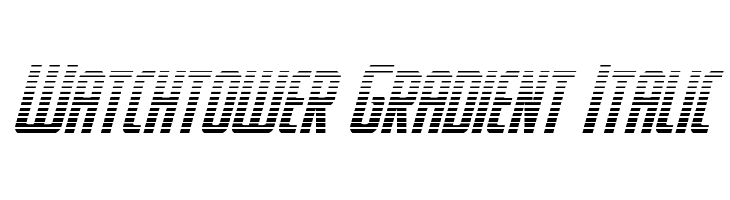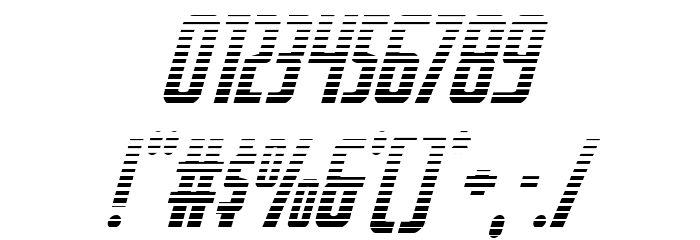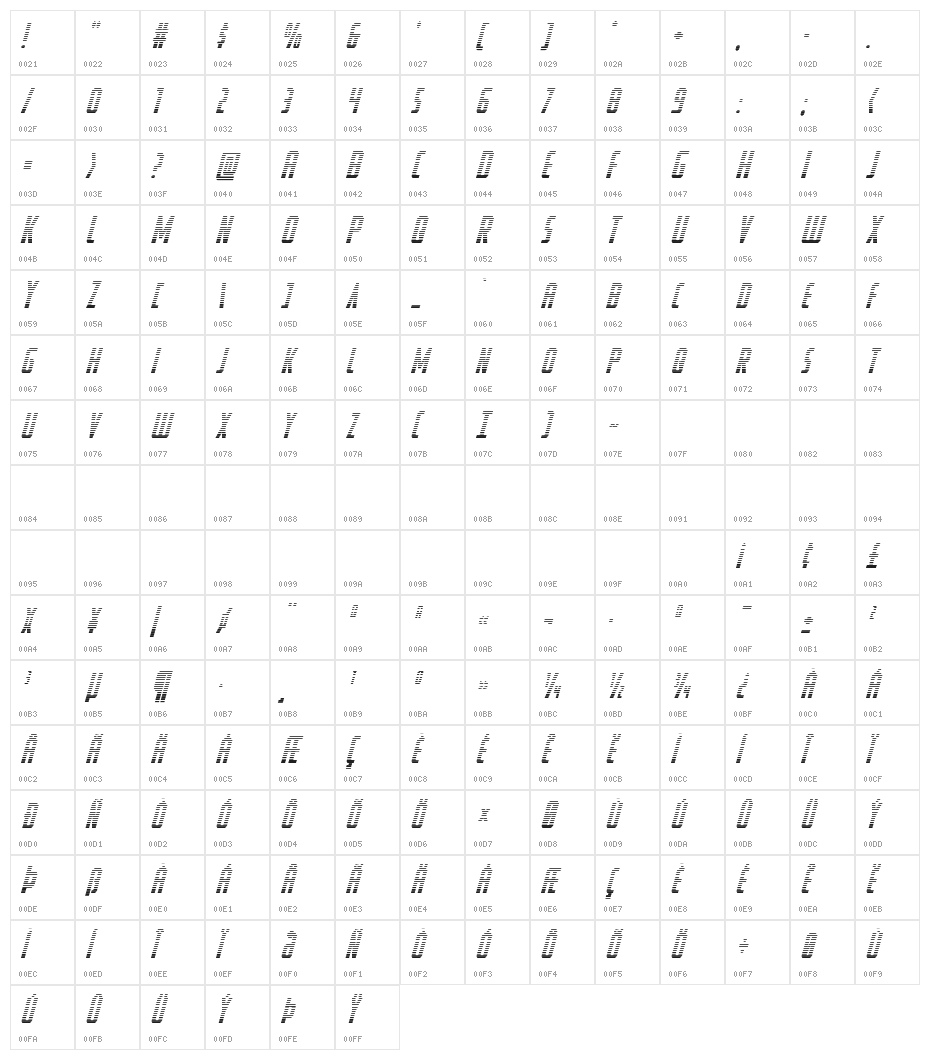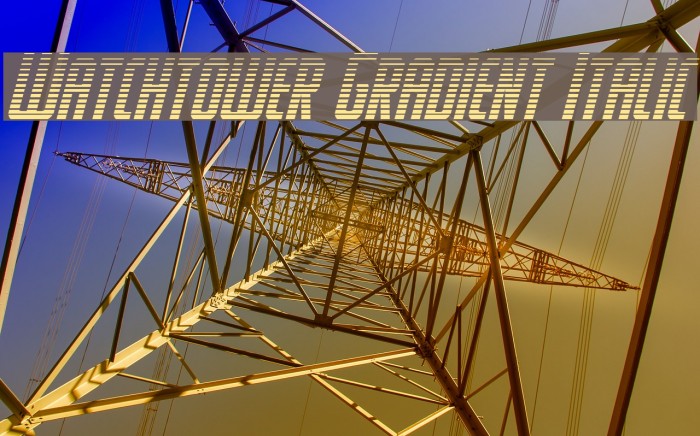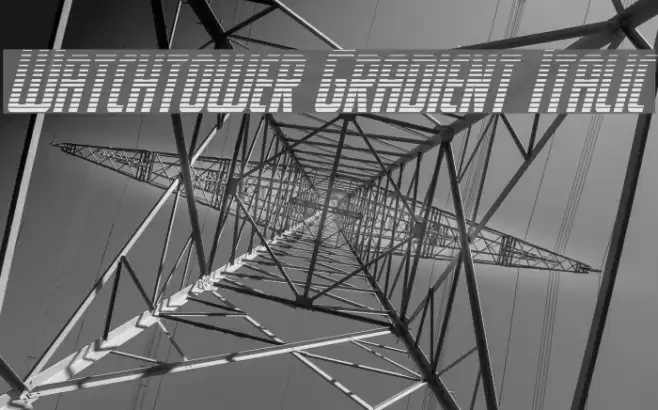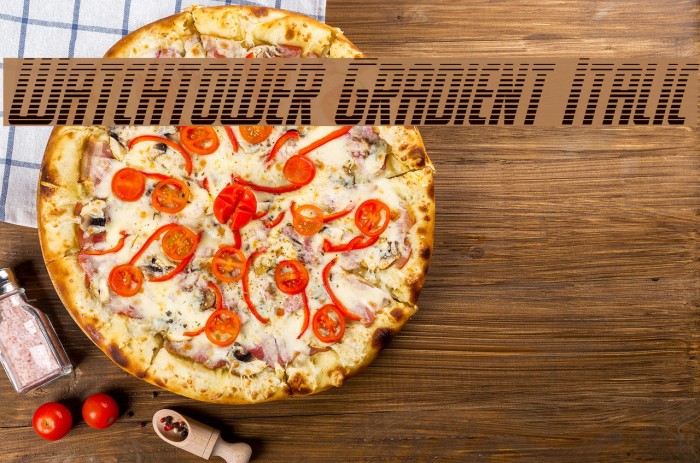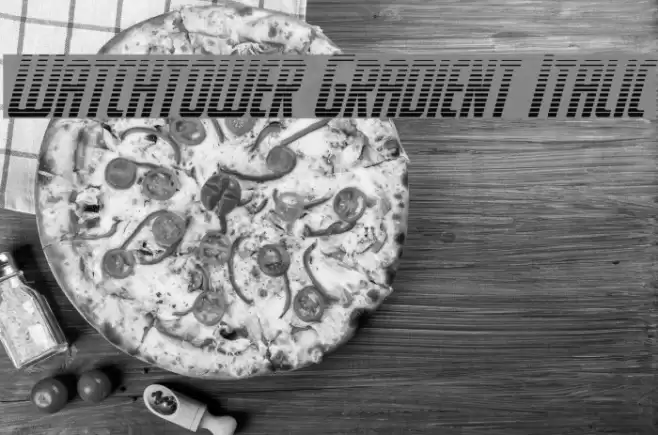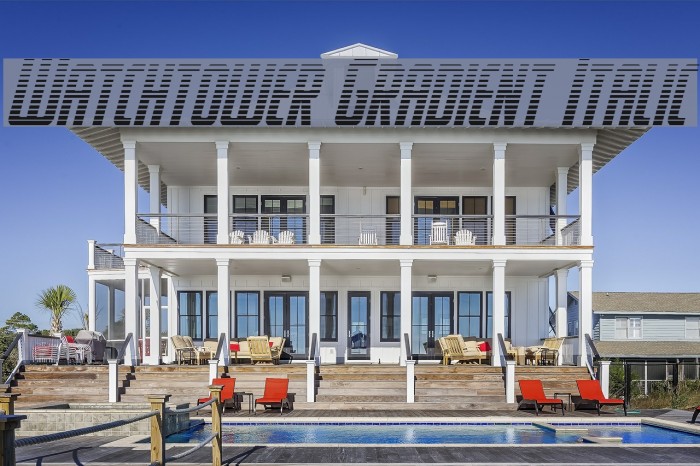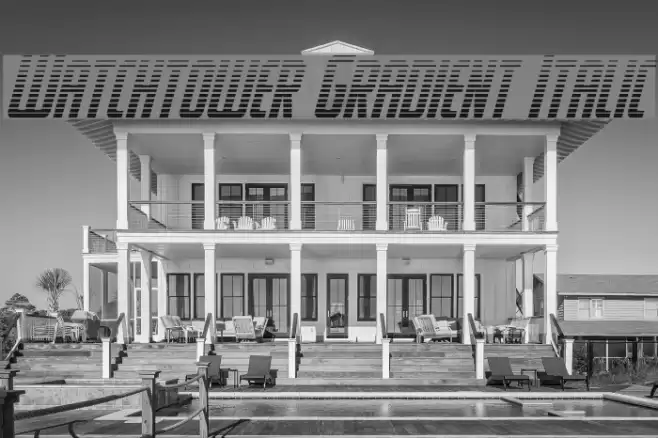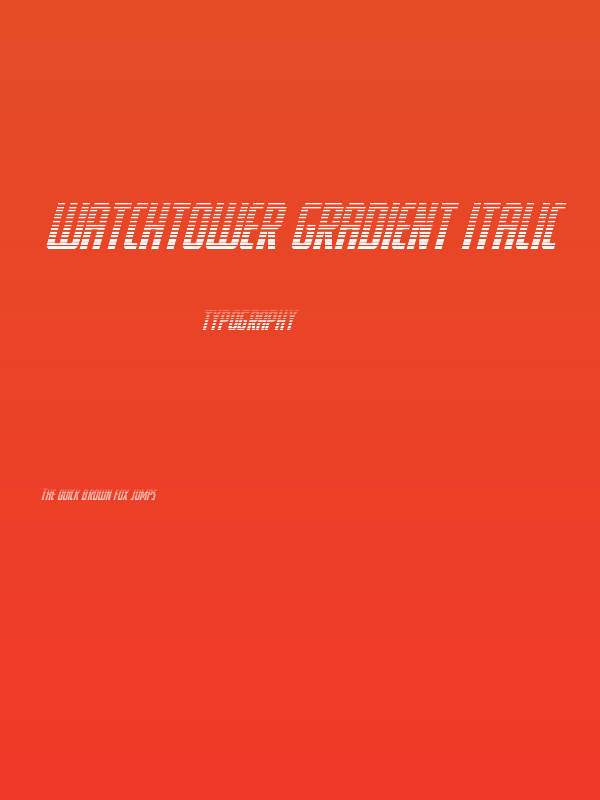
Watchtower Gradient Italic Font
Watchtower Gradient Italic Description
This font features a dynamic, modern design with a distinct italic slant, giving it a sense of motion and energy. The characters are composed of horizontal lines that create a gradient effect, adding depth and a futuristic feel. The uppercase and lowercase letters maintain a consistent style, with sharp angles and clean lines. Numbers and special characters are designed to match the overall aesthetic, ensuring uniformity across all text elements. This font is ideal for projects that require a bold, eye-catching look.
| Proposed Projects | Ideal for sports branding, tech-related designs, futuristic posters, and dynamic logos. |